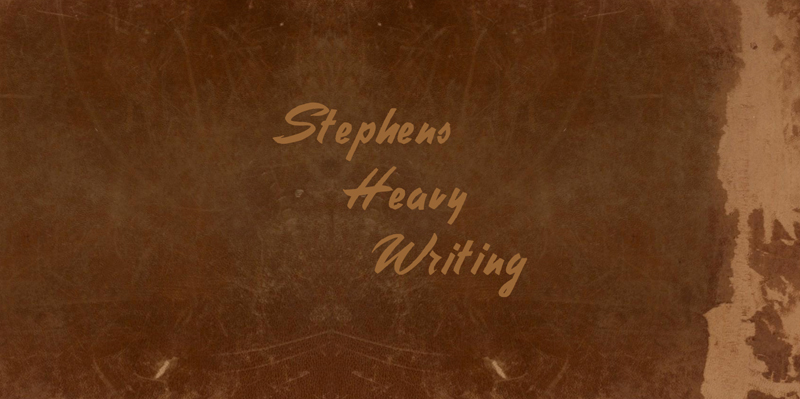
Stephens Heavy Writing by Paulo W. is a free heavy brush script with broad sweeps, sharp tapering ends, and rough inked edges. The letters lean forward, crowd together, and finish in quick, narrow flicks.
Packaging is its strongest medium, especially for hot sauce and small-batch drink labels, where rough edges and fast strokes suggest heat, motion, and a product made by hand. Its forceful movement also suits concert posters and album artwork, and the lettering can become a recognizable painted emblem within an independent streetwear or skate brand's visual identity.
Stephens Heavy Writing